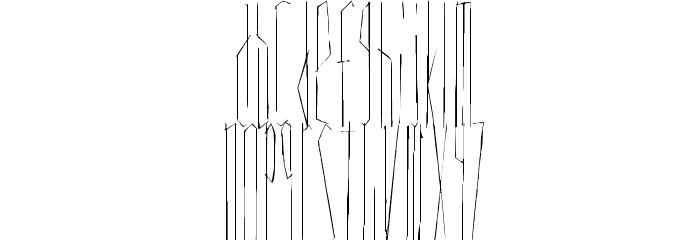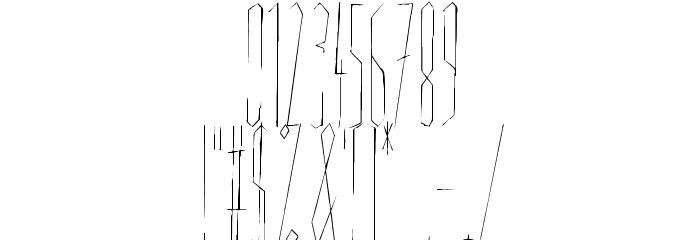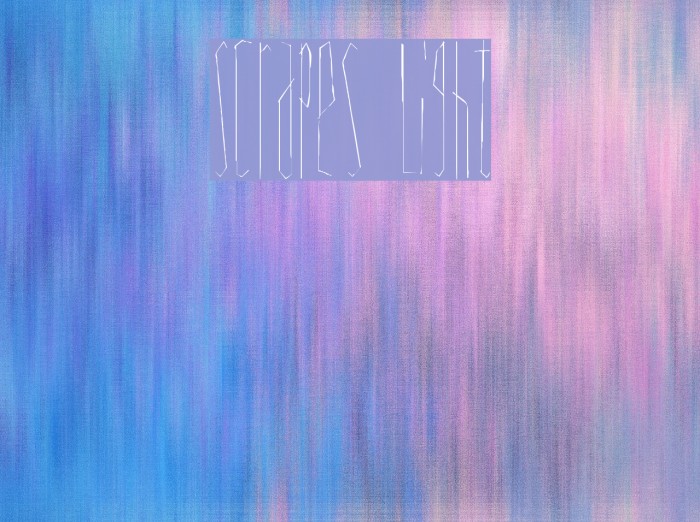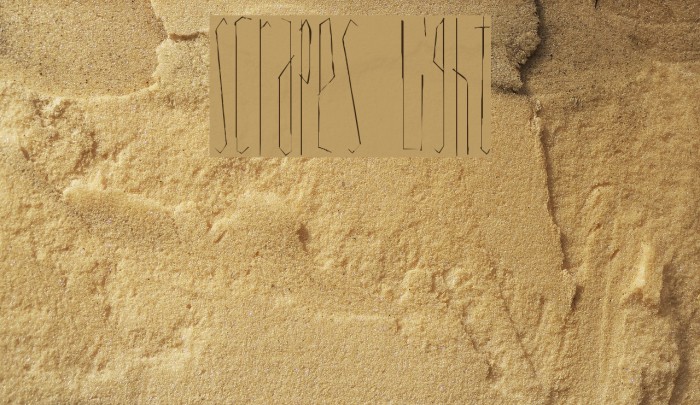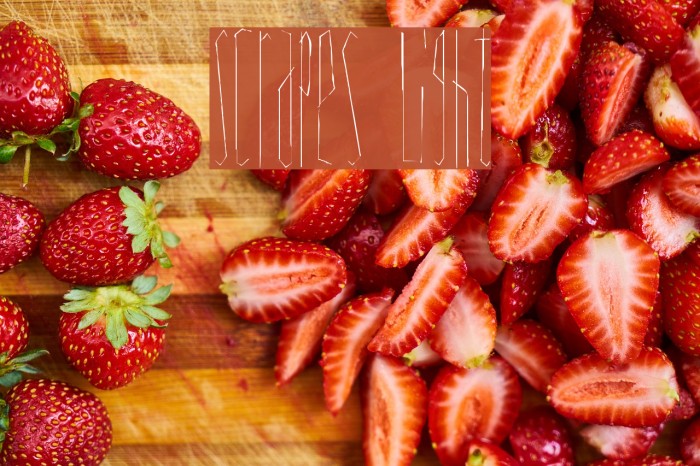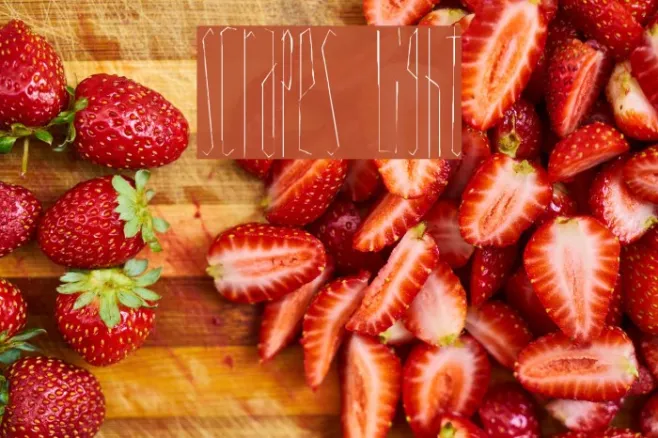
Scrapes Light Font
This font features an ultra-thin, elongated design with a modern and edgy aesthetic. The characters are tall and narrow, giving a sleek and sophisticated appearance. The strokes are consistently thin, creating a high contrast against the background. The overall look is minimalist, with a futuristic vibe that makes it stand out. The uppercase and lowercase letters maintain a consistent style, while the numbers and special characters complement the alphabet with their unique, sharp angles and clean lines.
A modern, ultra-thin font with elongated, sleek characters.
- Proposed Projects: Ideal for fashion magazines, modern branding, tech startups, and minimalist design projects.